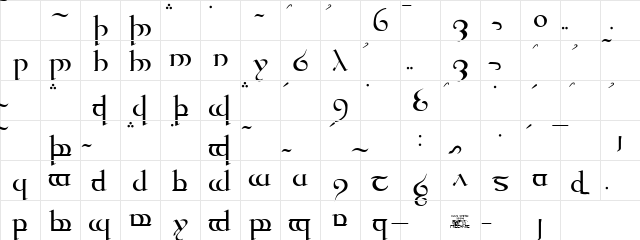
Tengwar Quenya Medium
Design Context for Tengwar Quenya Typeface
Tengwar Quenya takes a measured approach to typography — its balanced proportions and neutral character make it a reliable workhorse for both digital and print work.